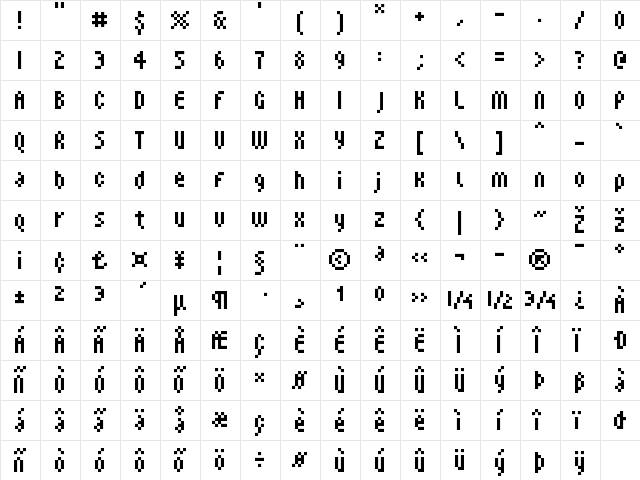
FFF Nadador Tight Regular
Design Context for FFF Nadador Tight Typeface
FFF Nadador Tight is a composed and adaptable typeface that performs quietly and consistently across a wide range of design contexts.